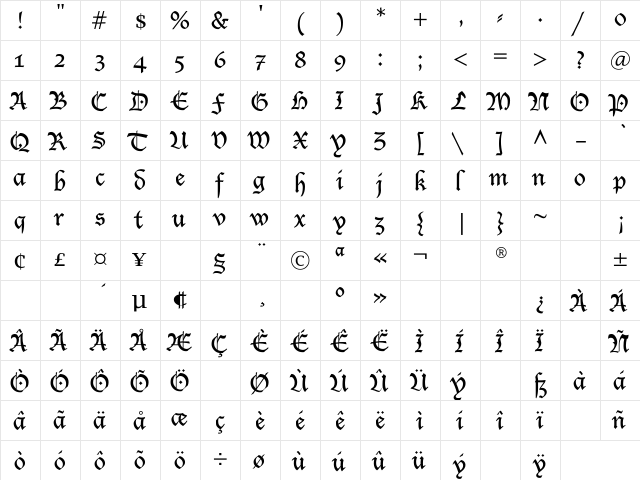
Lucida Blacklet Regular Font Preview
Lucida Blacklet Regular
Design Context for Lucida Blacklet Typeface
Lucida Blacklet takes a measured approach to typography — its balanced proportions and neutral character make it a reliable workhorse for both digital and print work.